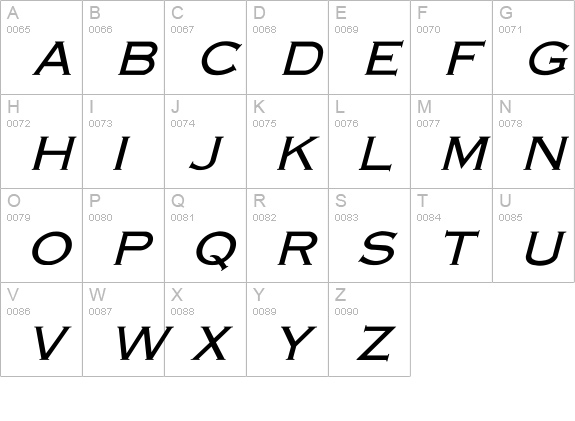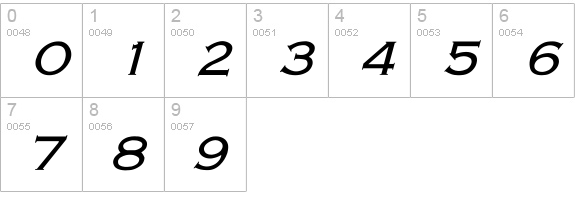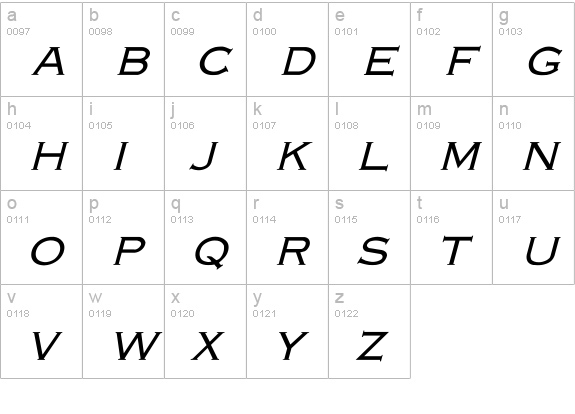
Engraver-Light Italic Font Details
Engraver-Light Italic is a refined, elegant, italic variant in the Engraver typeface family \xE2\x80\x94 well suited to elegant body text, refined sub-headings, and luxury branding.
Engraver-Light Italic font is a sophisticated and elegant typeface that exudes a sense of refinement and style. Its delicate and flowing curves make it perfect for adding a touch of sophistication to any design project. The italicized version of the Engraver-Light font adds a subtle flair and a touch of grace to your text. This font is not only visually appealing but also versatile, making it suitable for a wide range of design applications. Whether you're creating invitations, logos, or other graphic designs, Engraver-Light Italic font is sure to elevate your work to the next level. Best of all, Engraver-Light Italic font is available for free download at FontsMarket.com. This means you can easily access this beautiful typeface and use it in your projects without any cost. Don't miss out on the opportunity to enhance your designs with the timeless elegance of Engraver-Light Italic font. Download it today and add a touch of sophistication to your creations!